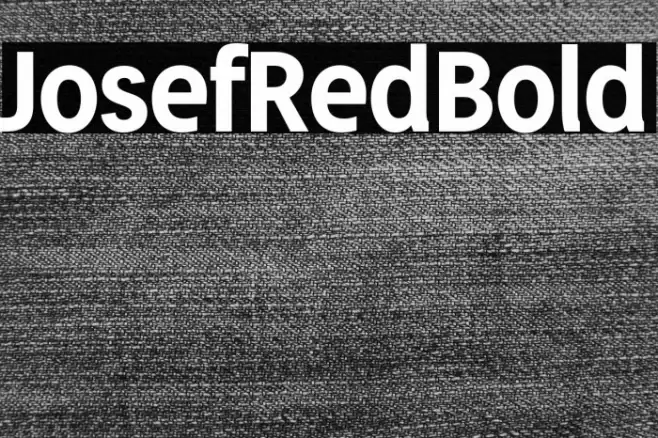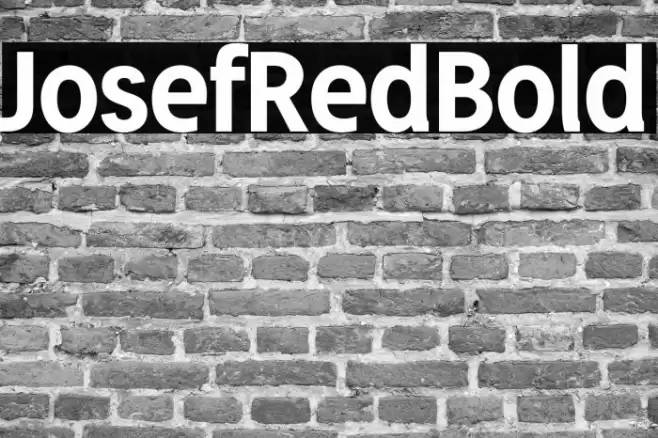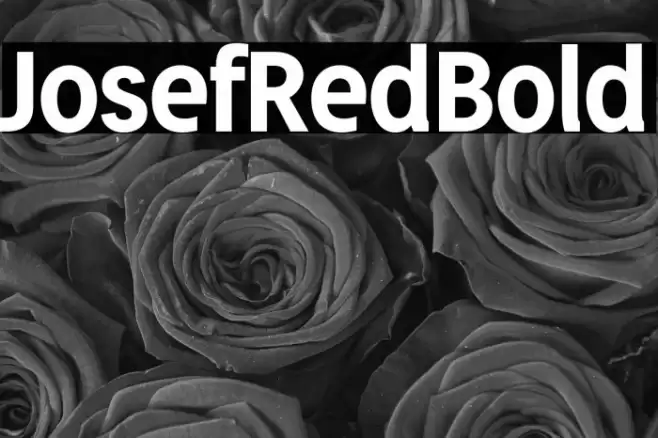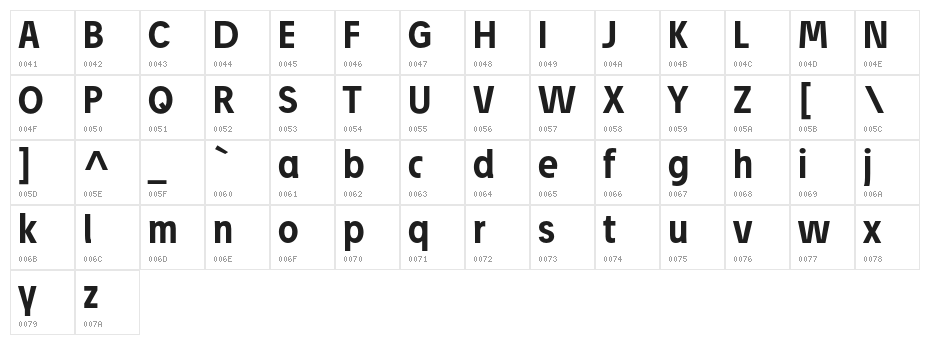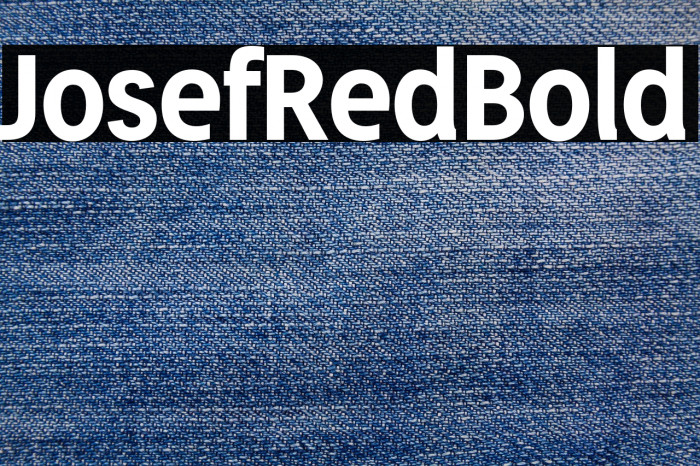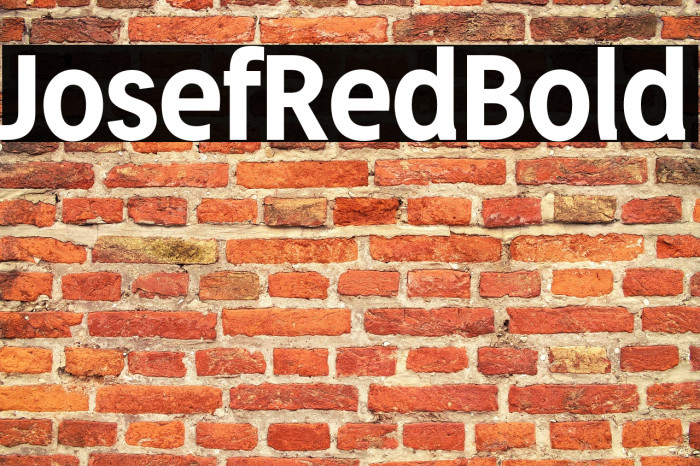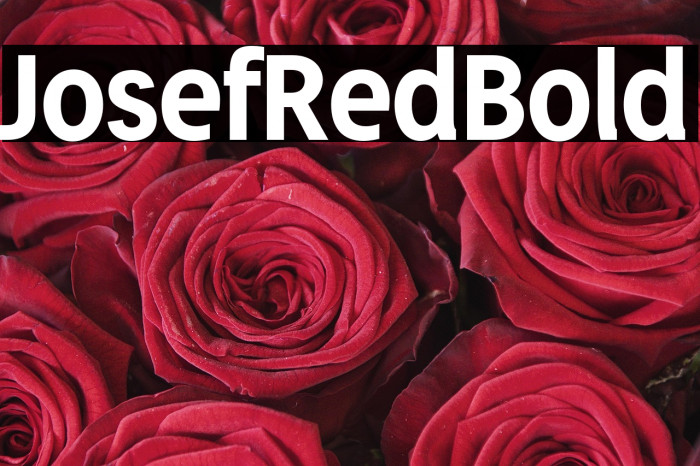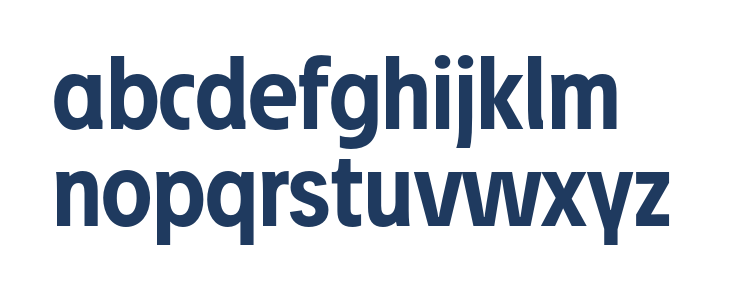
JosefRed-Bold Font
JosefRed-Bold Description
This typeface features a bold and modern sans-serif design, characterized by clean lines and a strong presence. The uppercase and lowercase letters are well-proportioned, with a consistent stroke width that conveys a sense of stability and confidence. The characters are designed with a slightly condensed width, which allows for efficient use of space without sacrificing readability. The font's simplicity and clarity make it versatile for various applications, from digital to print media. Its geometric shapes and uniformity lend it a contemporary feel, suitable for both professional and creative projects.
A bold, modern sans-serif font with clean lines and a slightly condensed width from Uncategorized fonts.
- Proposed Projects: Ideal for branding, advertising, headlines, and digital interfaces where clarity and impact are essential.
- Use Case: Headlines, Logos, Digital interfaces